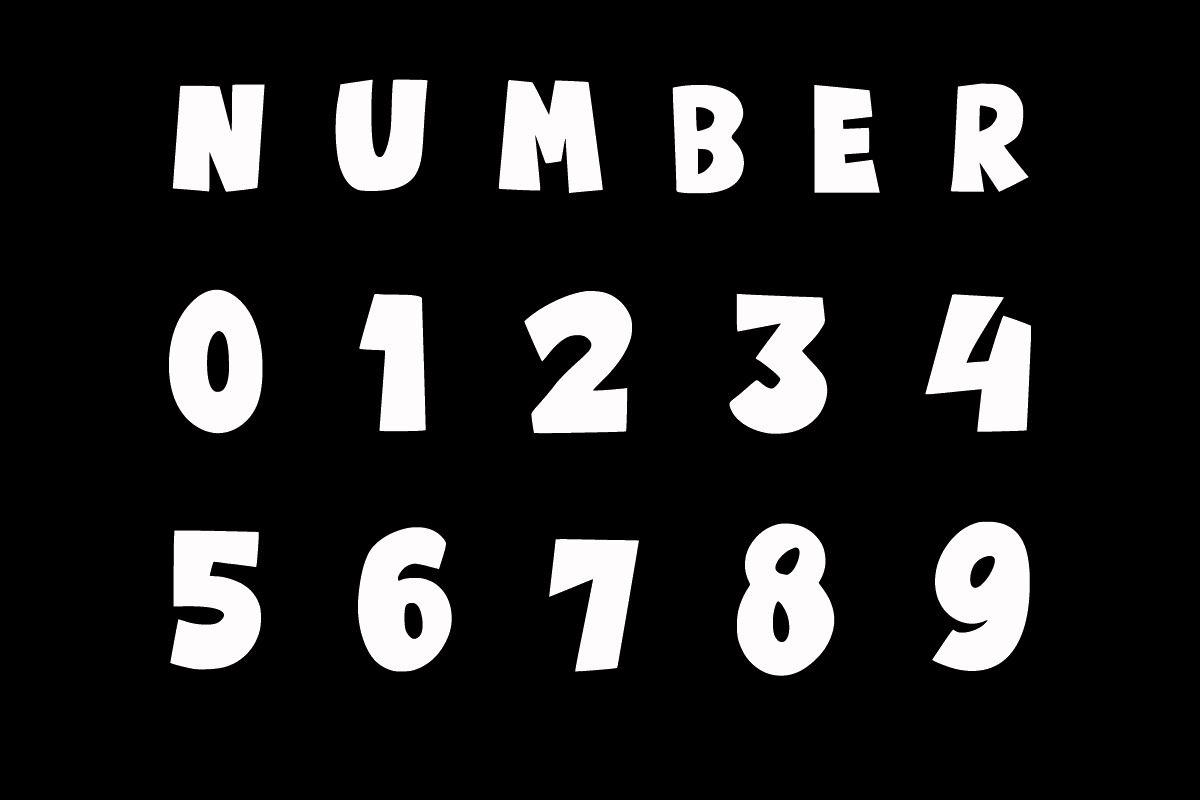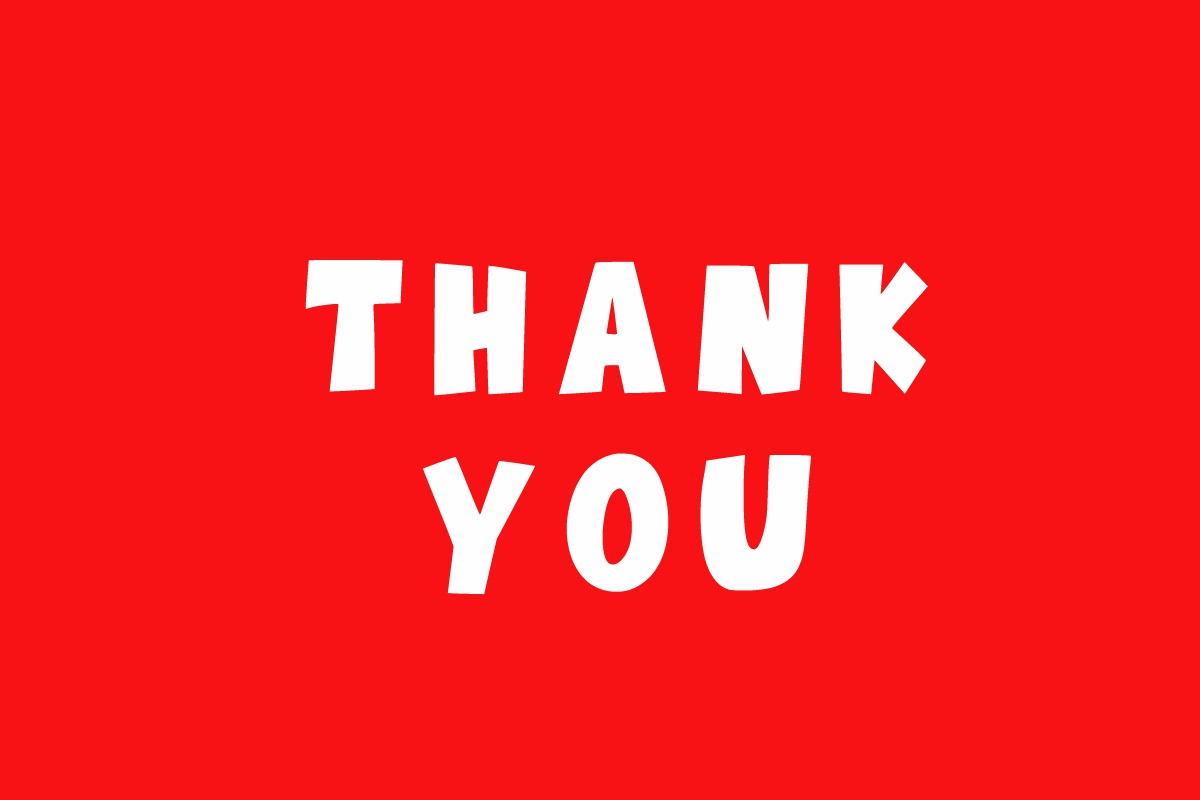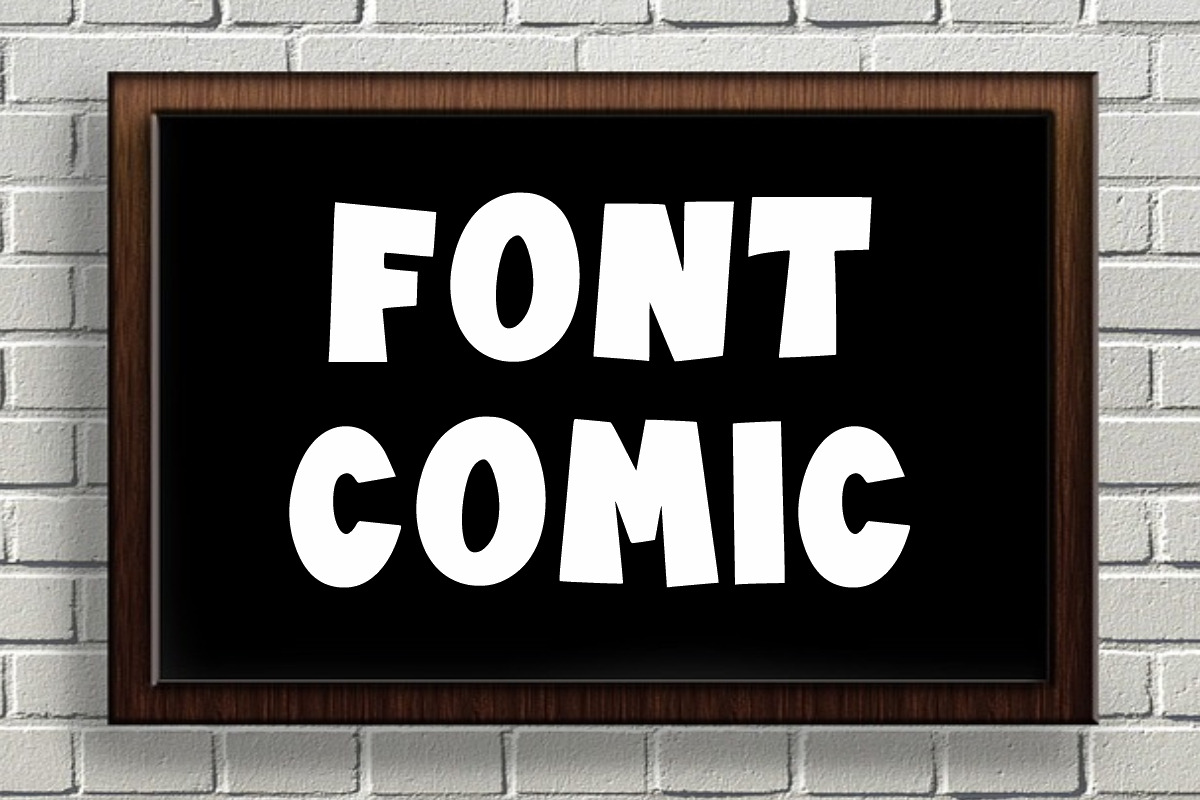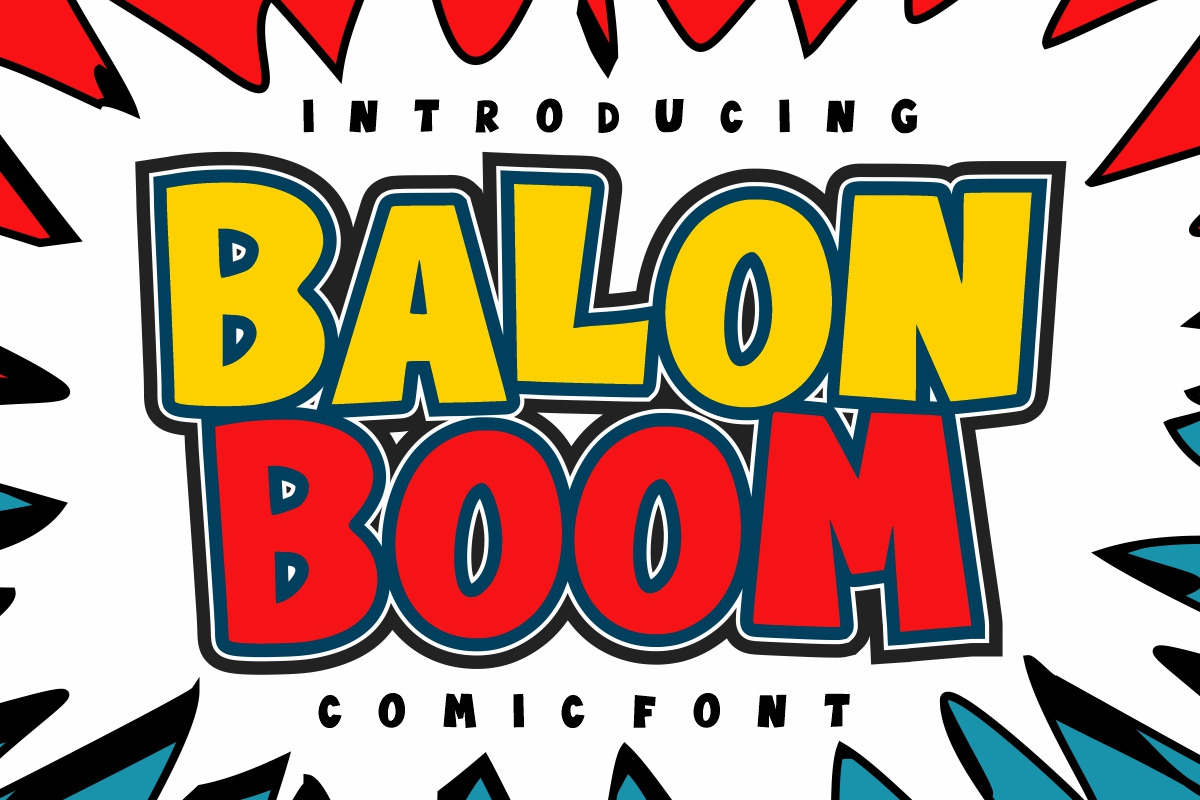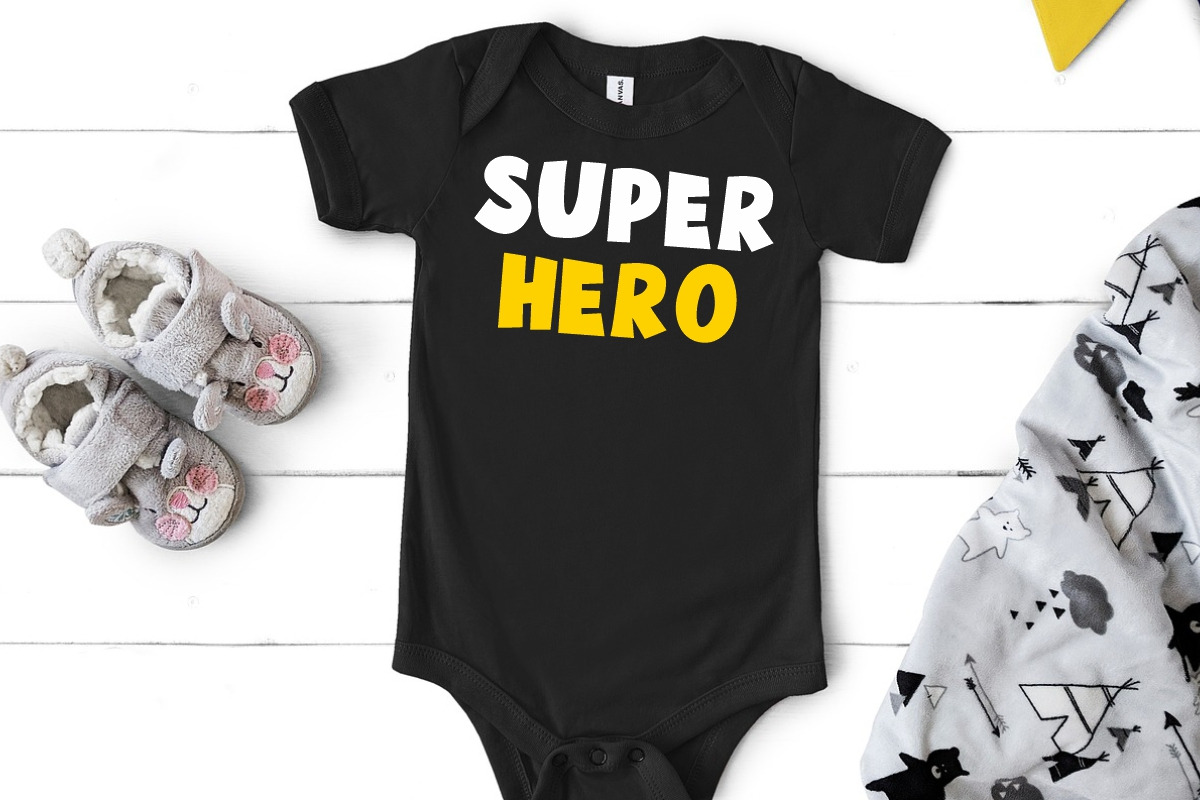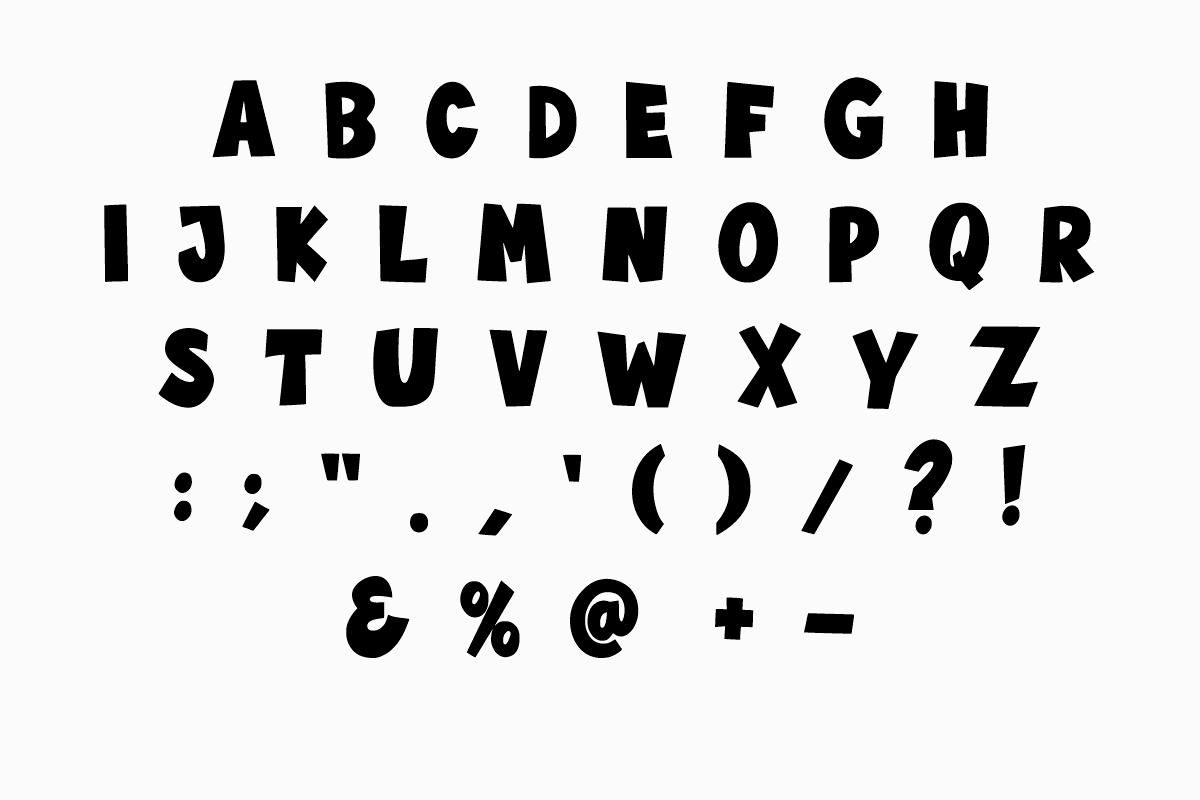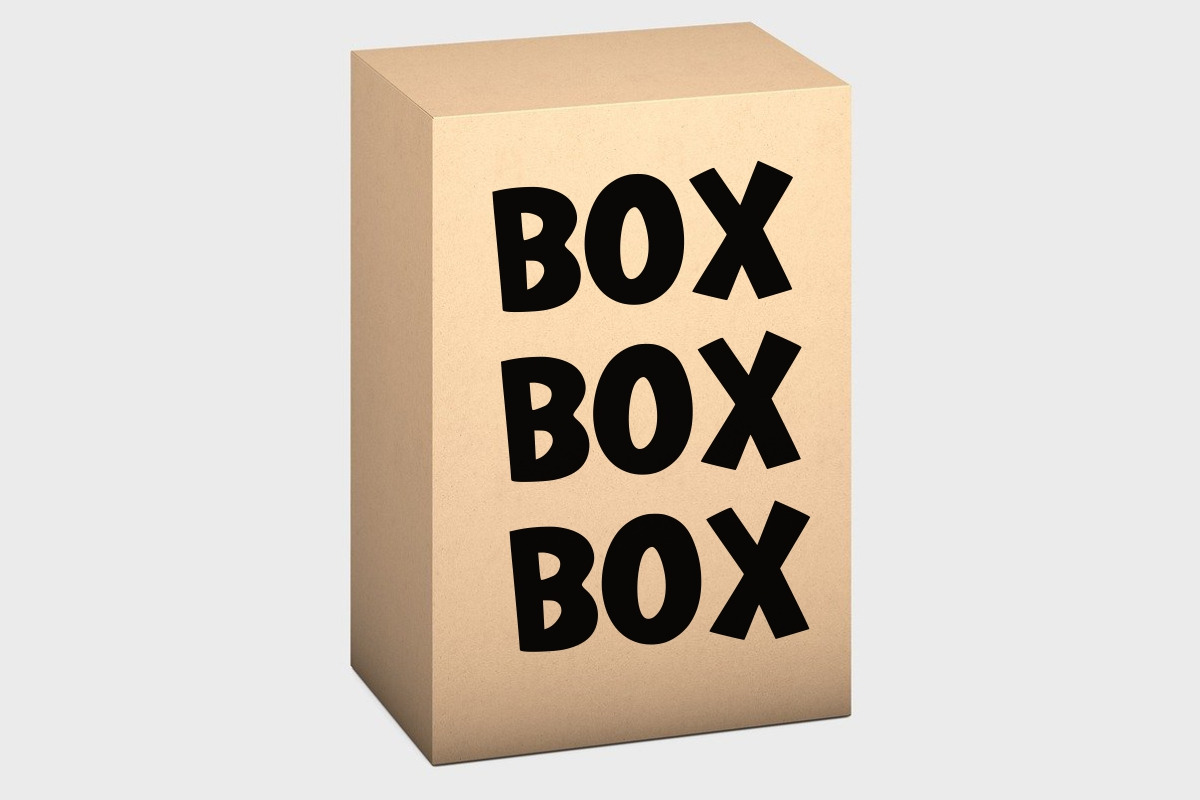
Balon Boom - Comic Font
Balon Boom is a childish, comic style, easy-to-read display font that conveys impeccable friendliness. Whether you’re using it for crafts, digital design, presentations, or making greeting cards.